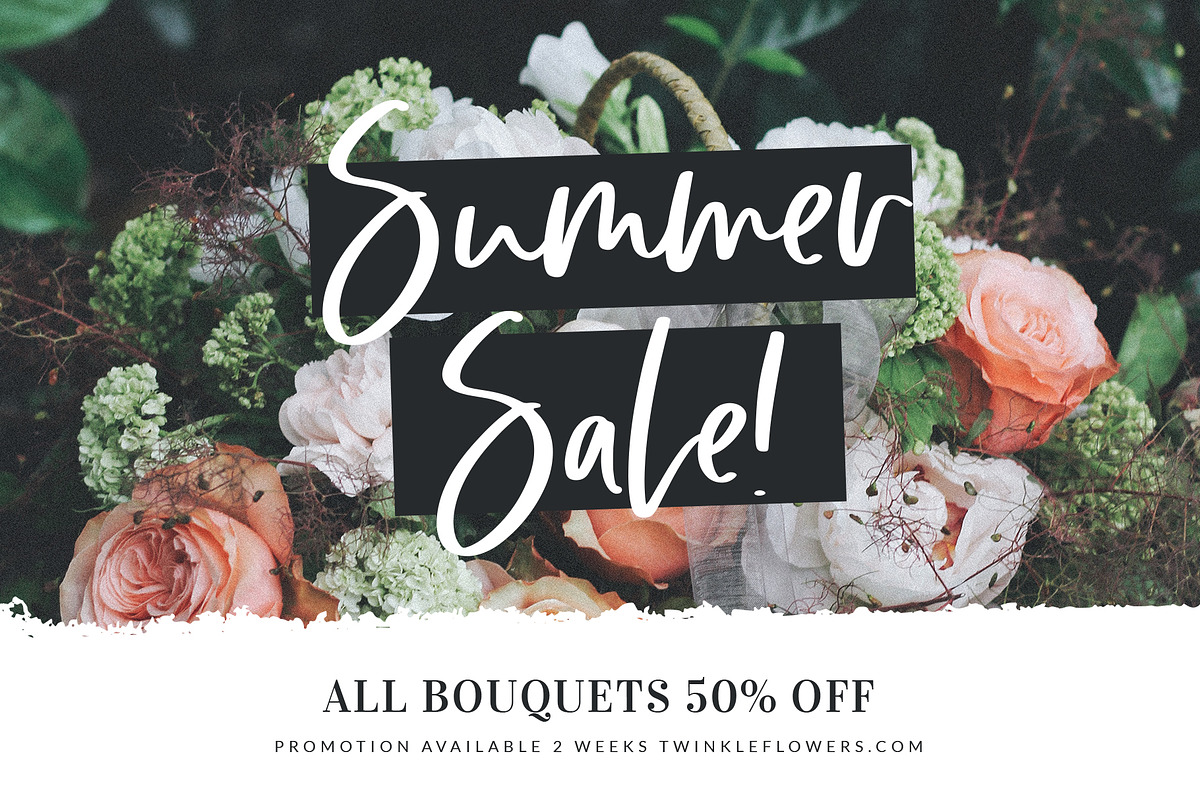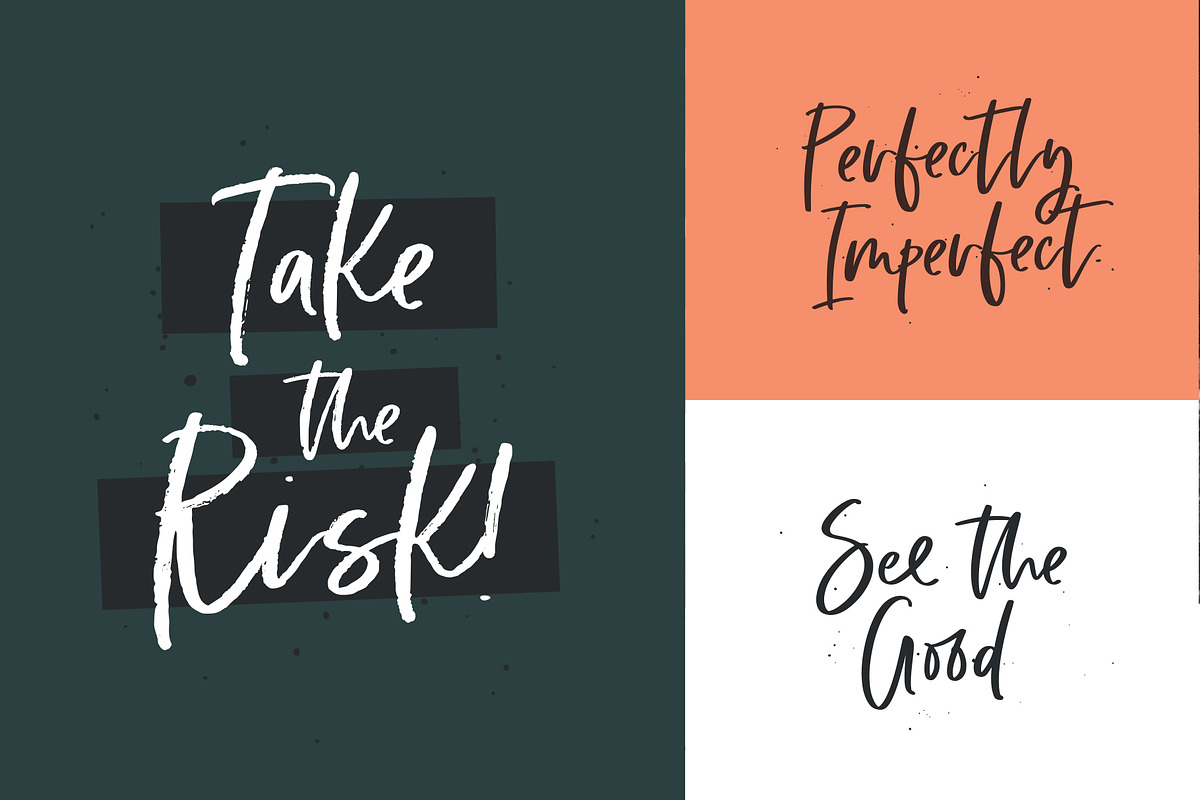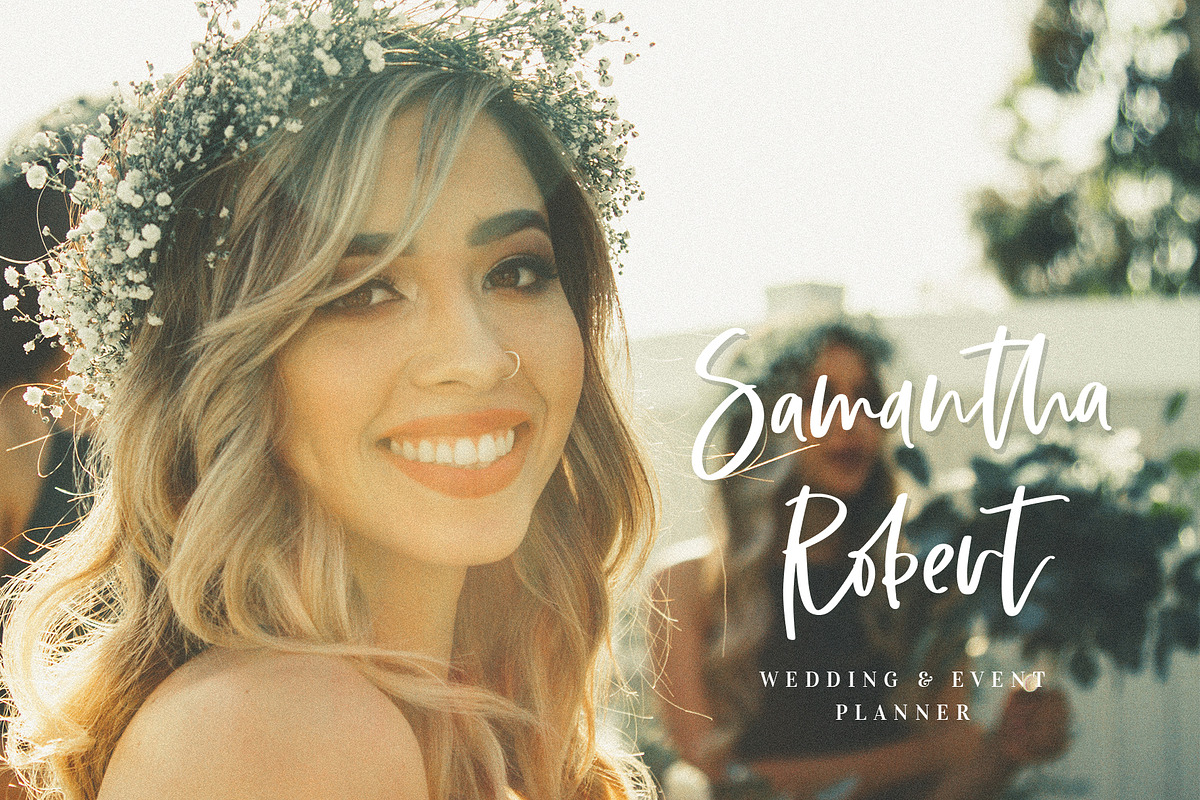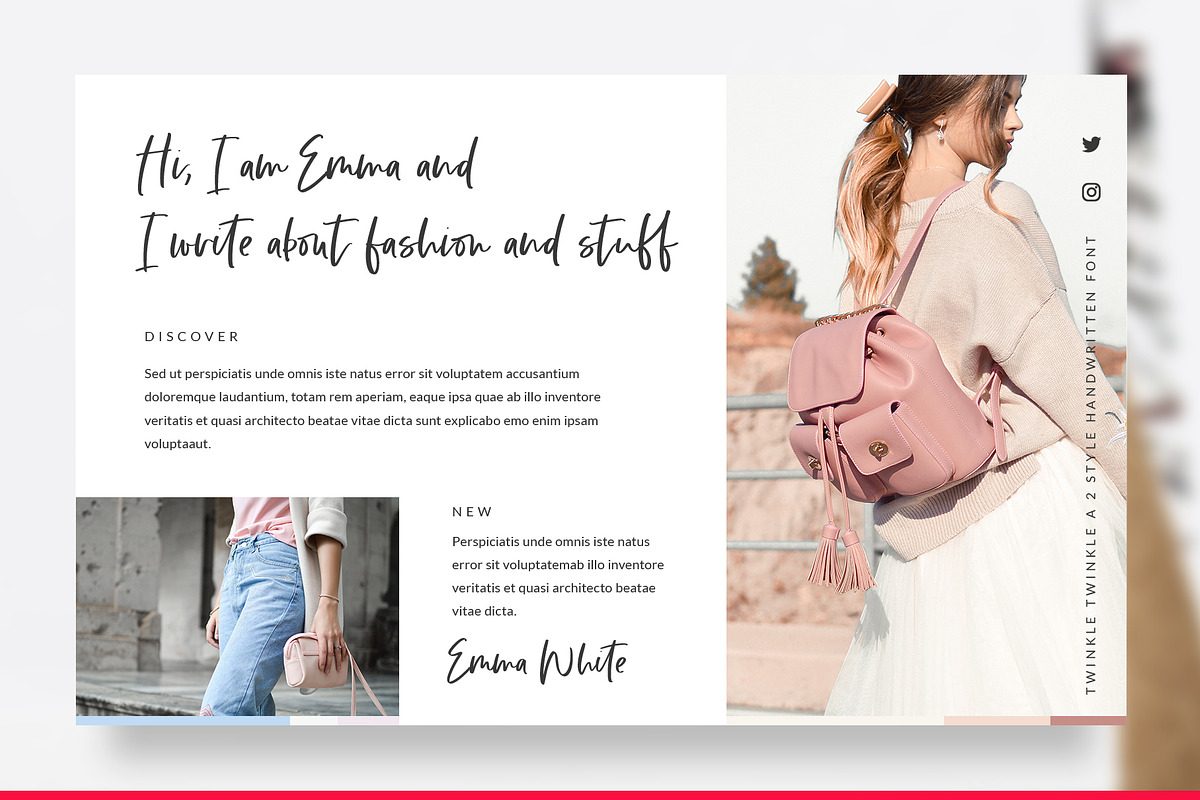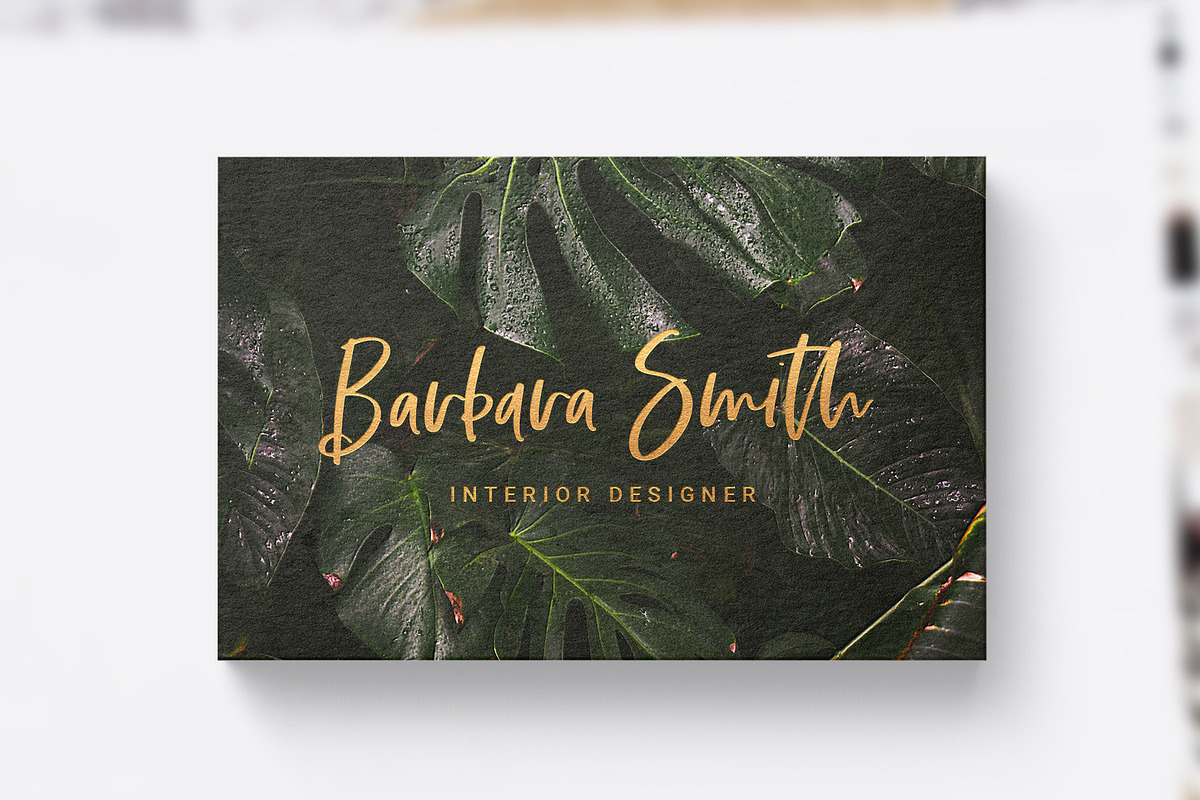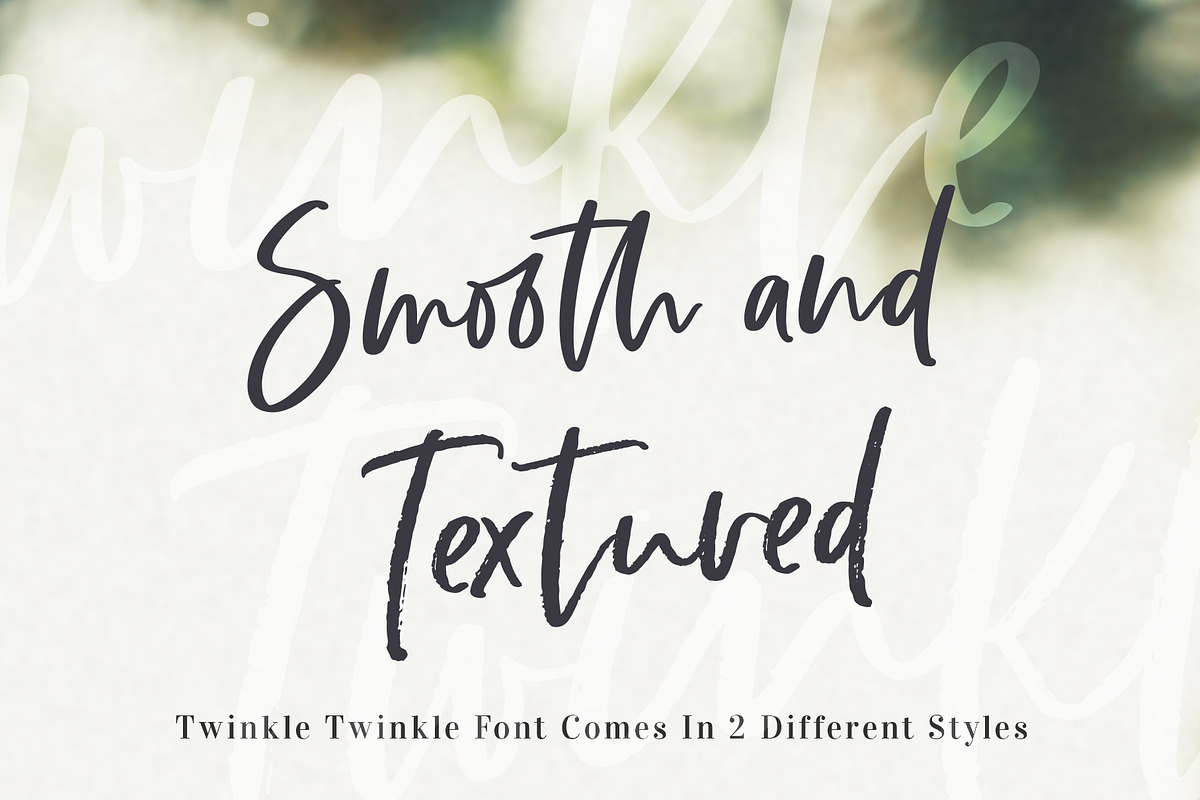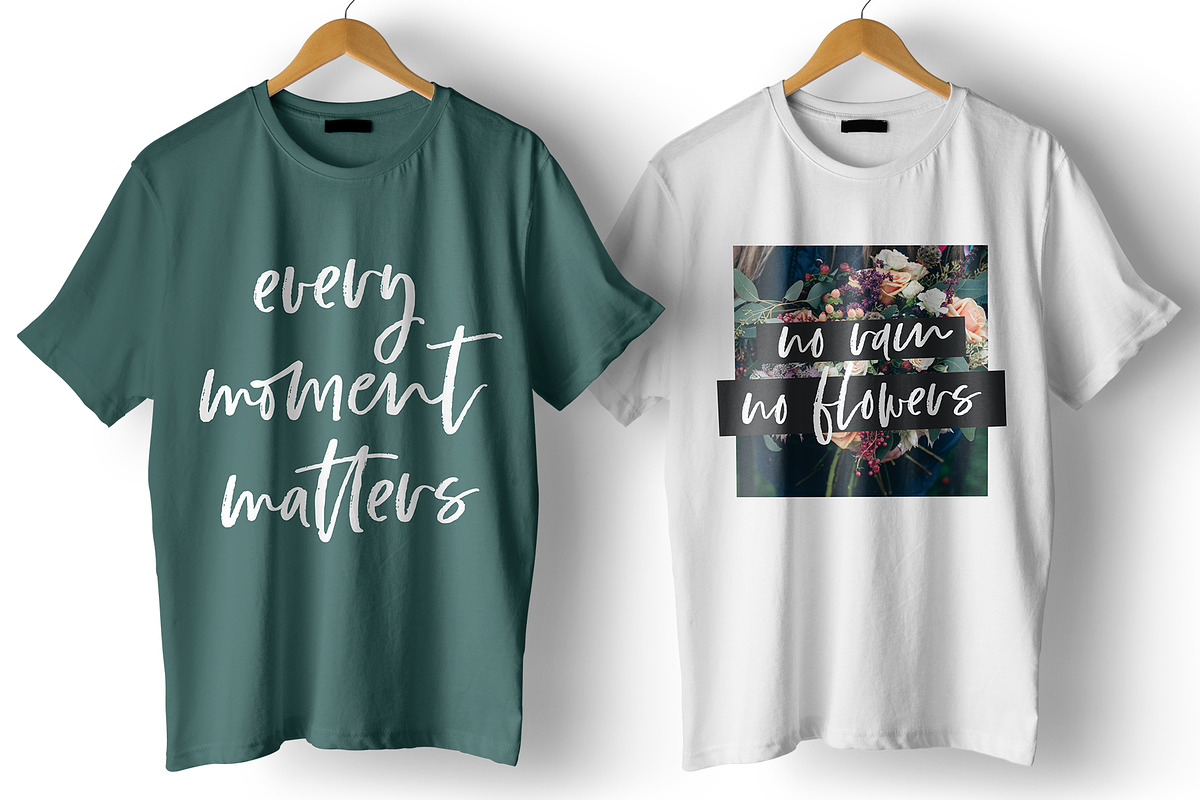
Twinkle Handwritten Font
Twinkle Handwritten Font is a cool and modern handwritten font that comes in 2 styles, smooth and textured. I created lots of ligatures which gives text a real handwritten and personal feel.
Twinkle Handwritten Font comes with upper and lowercase Basic Characters, Numbers, Marks and Punctuation. Diacritics are also available for Western and Central European Languages. As a feature you have also the standard Double Letters Ligature, Contextual Ligatures and Alternates.